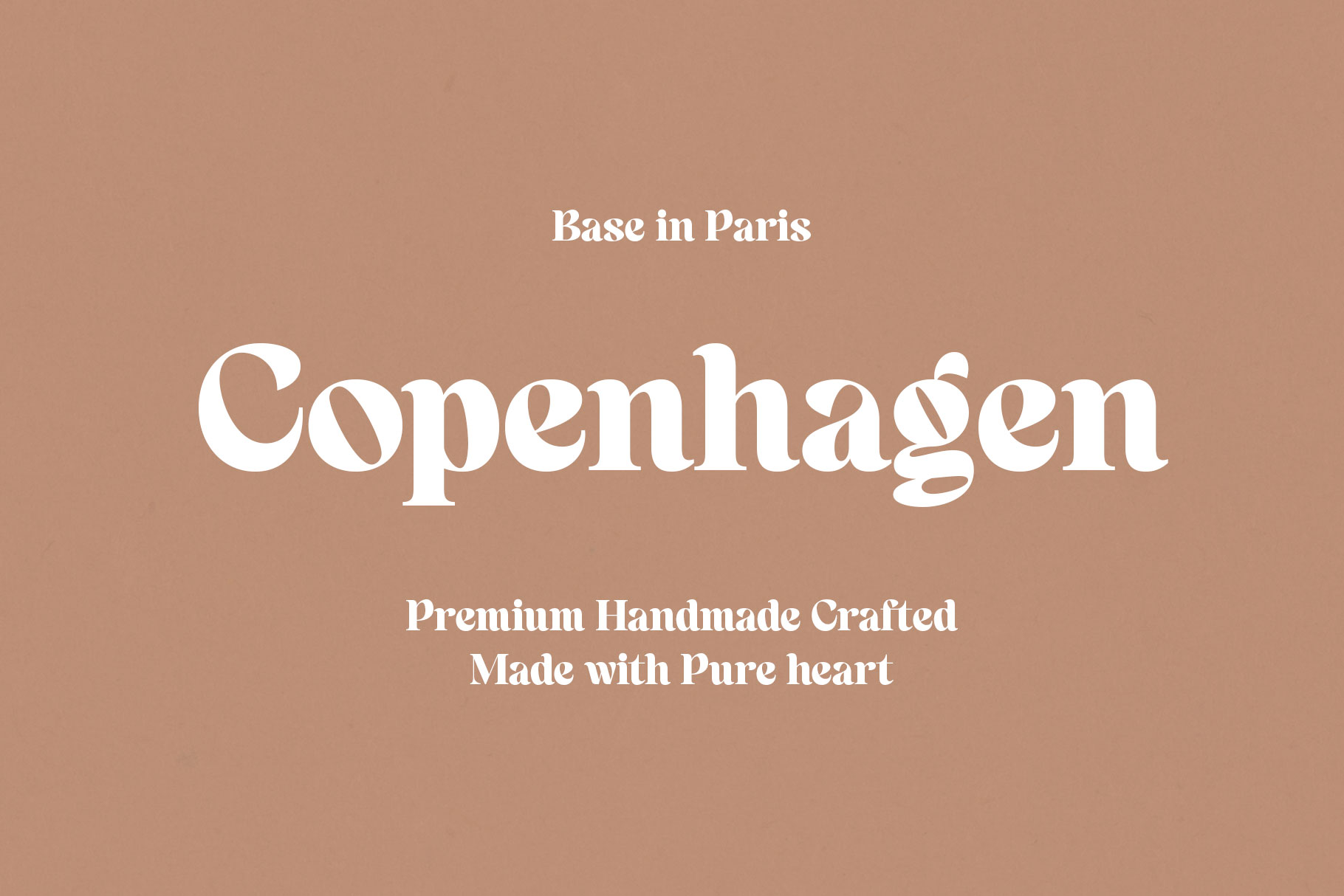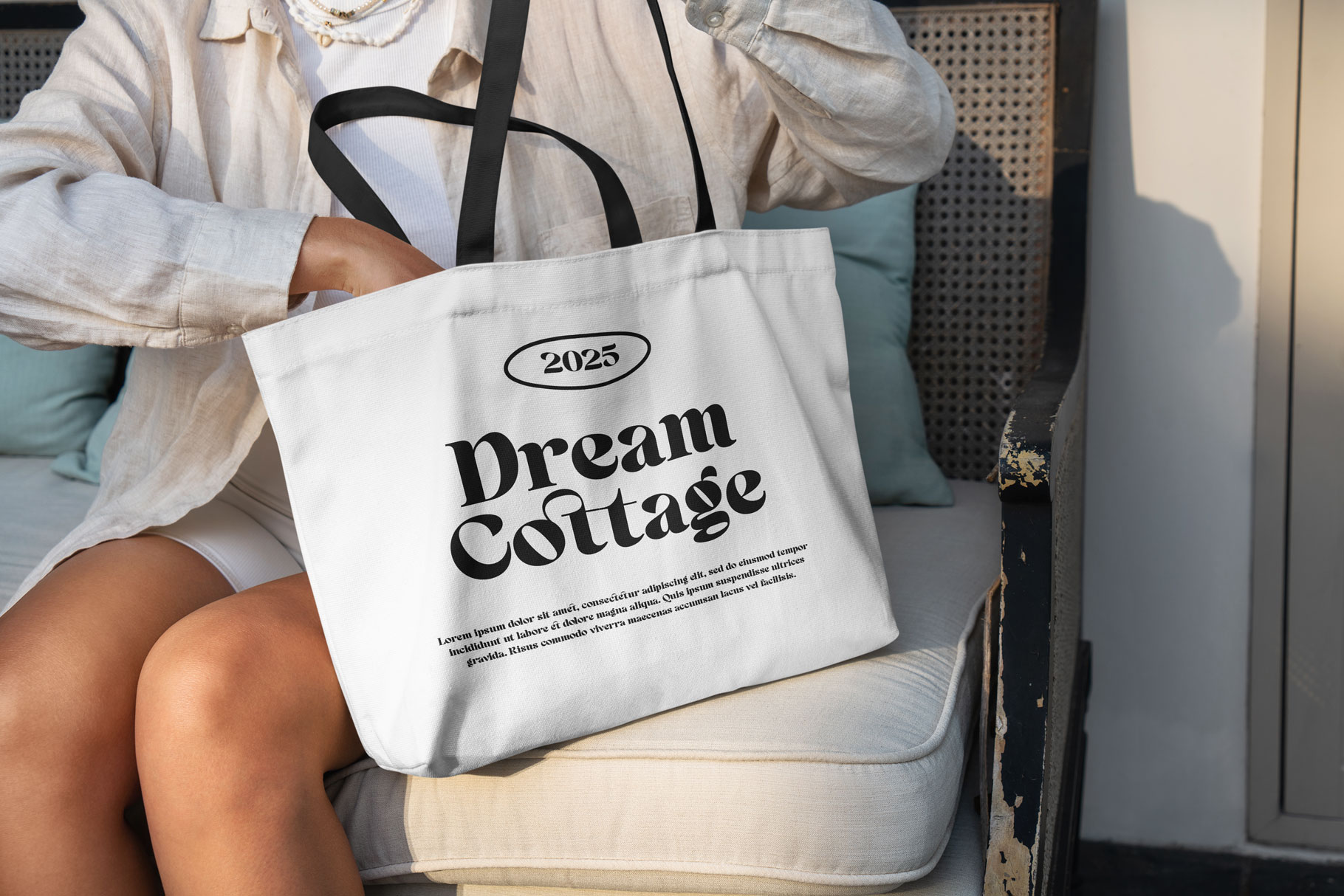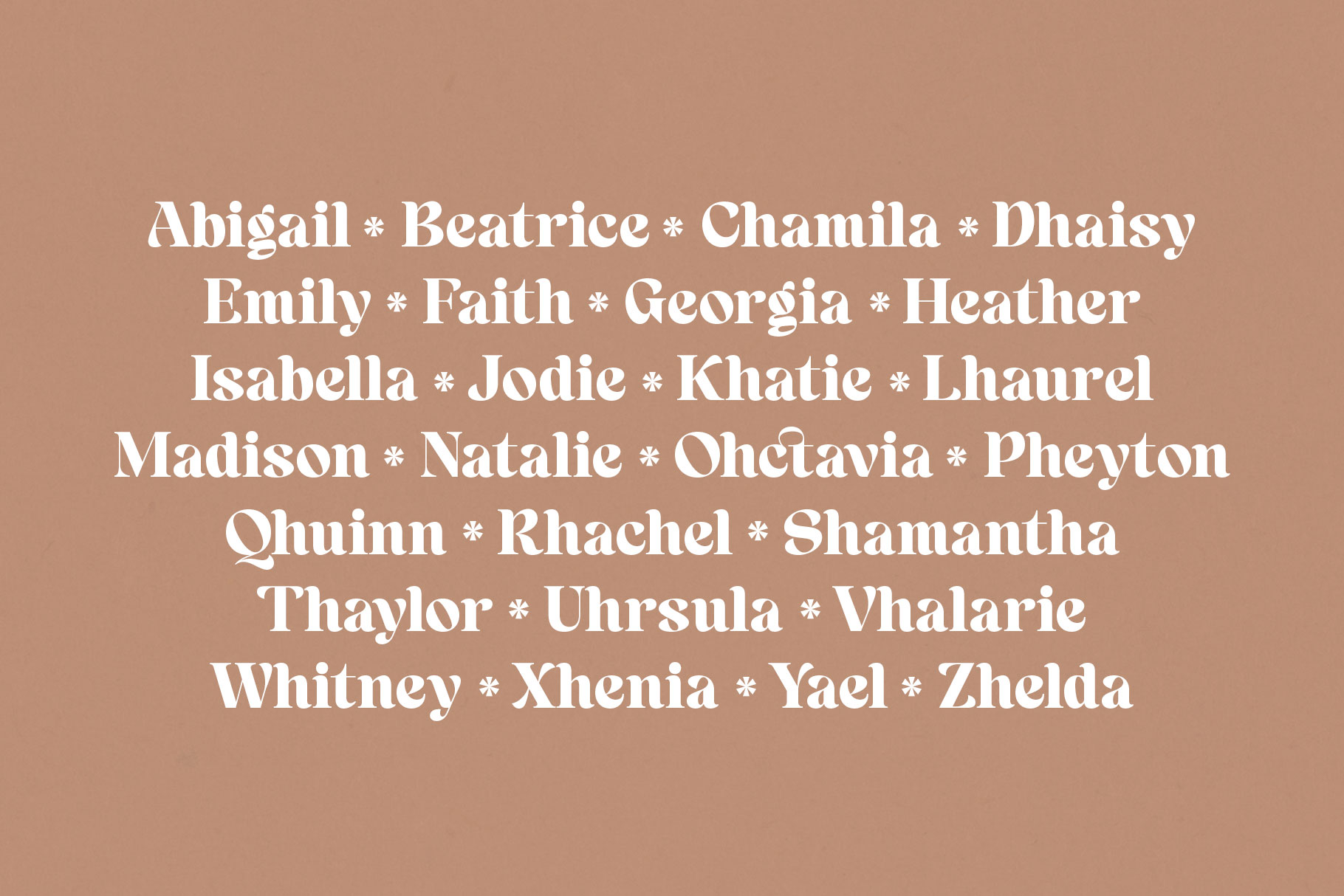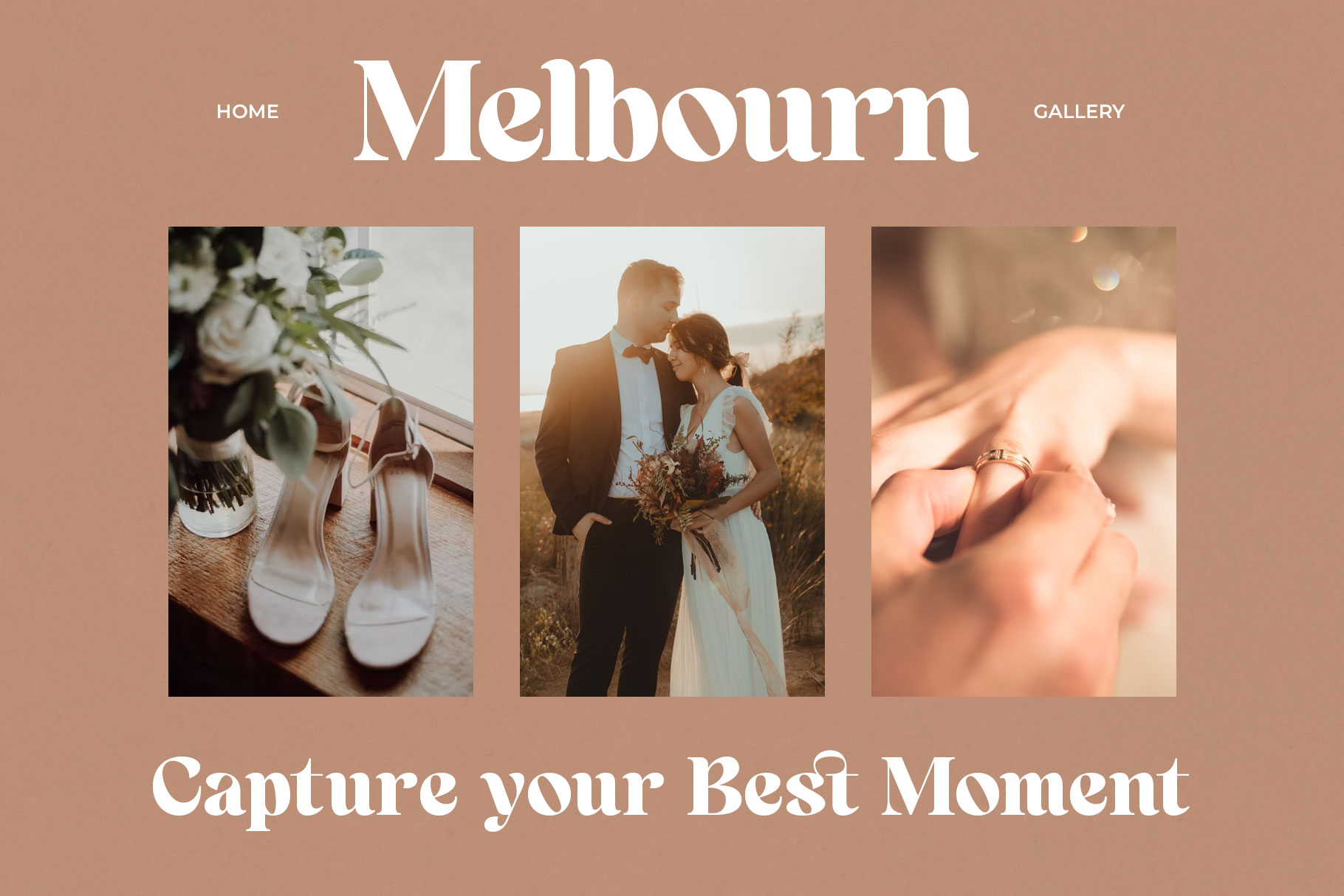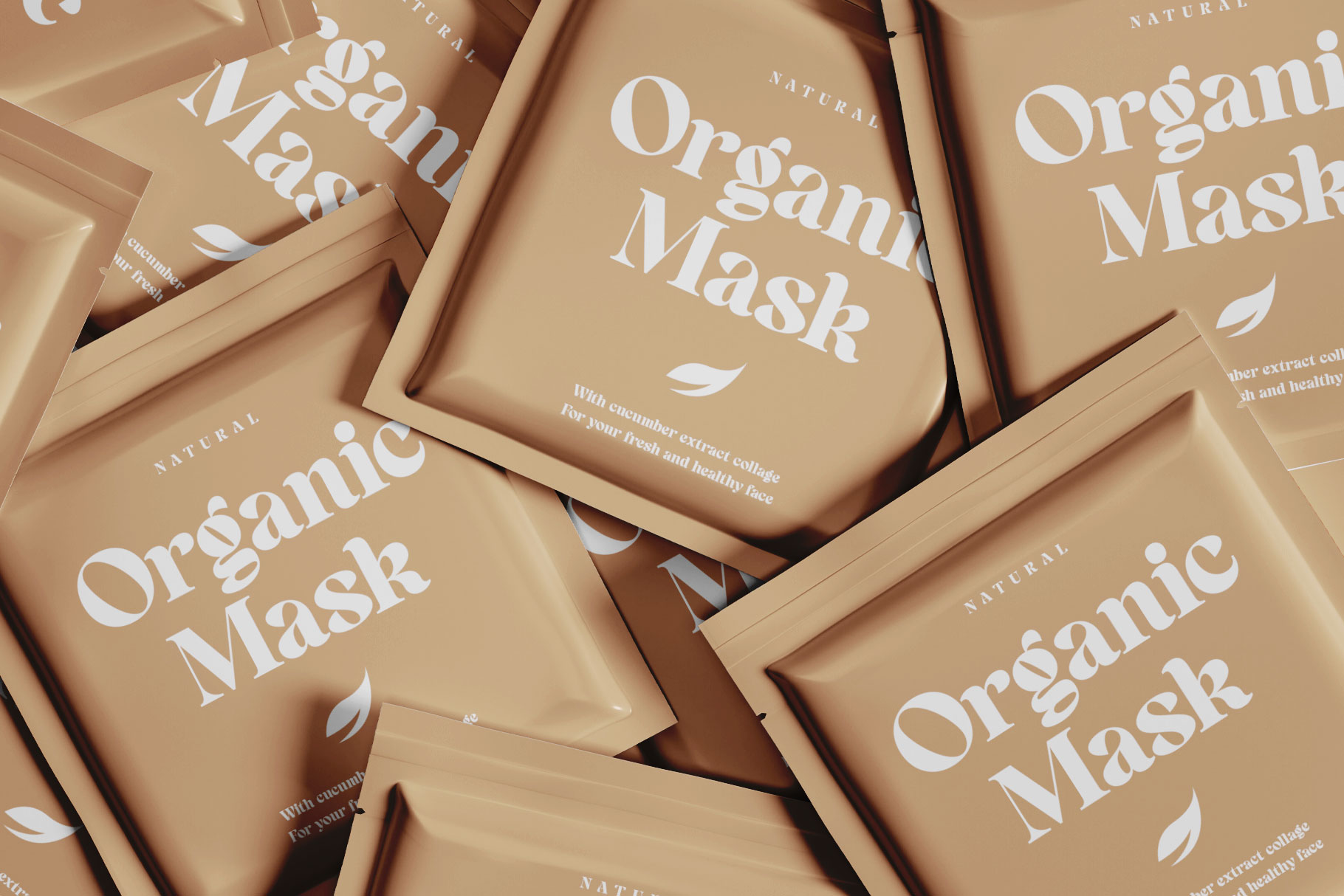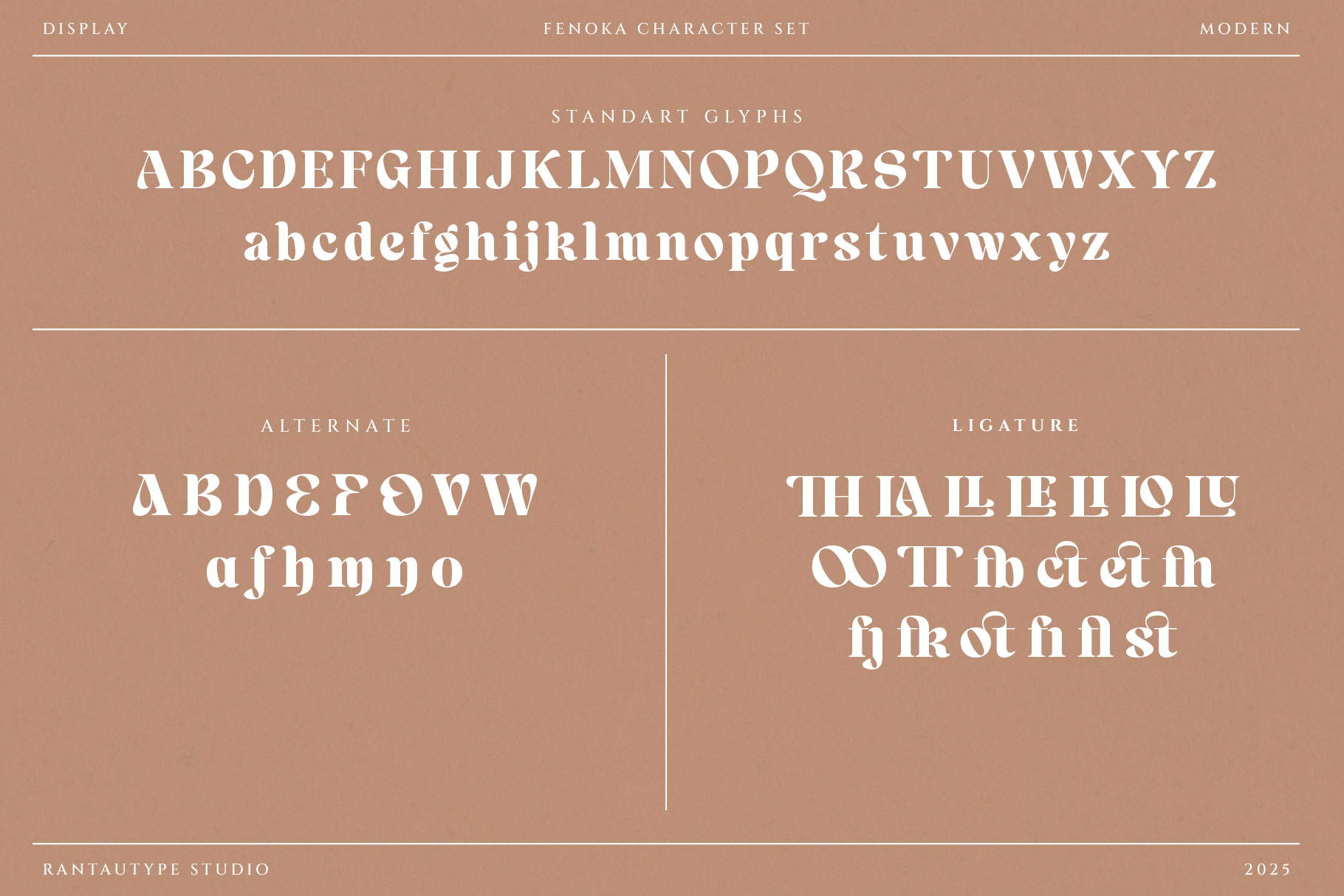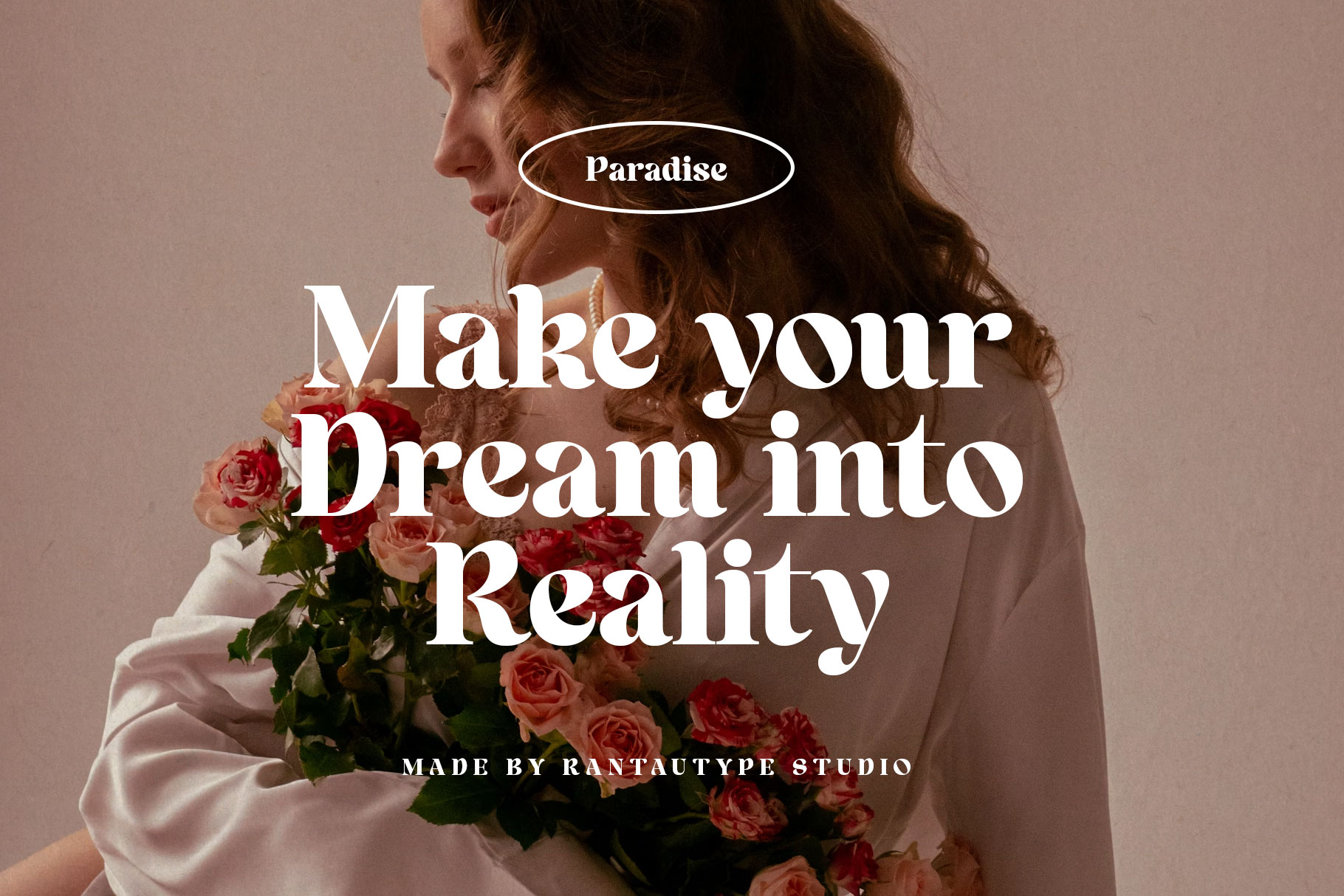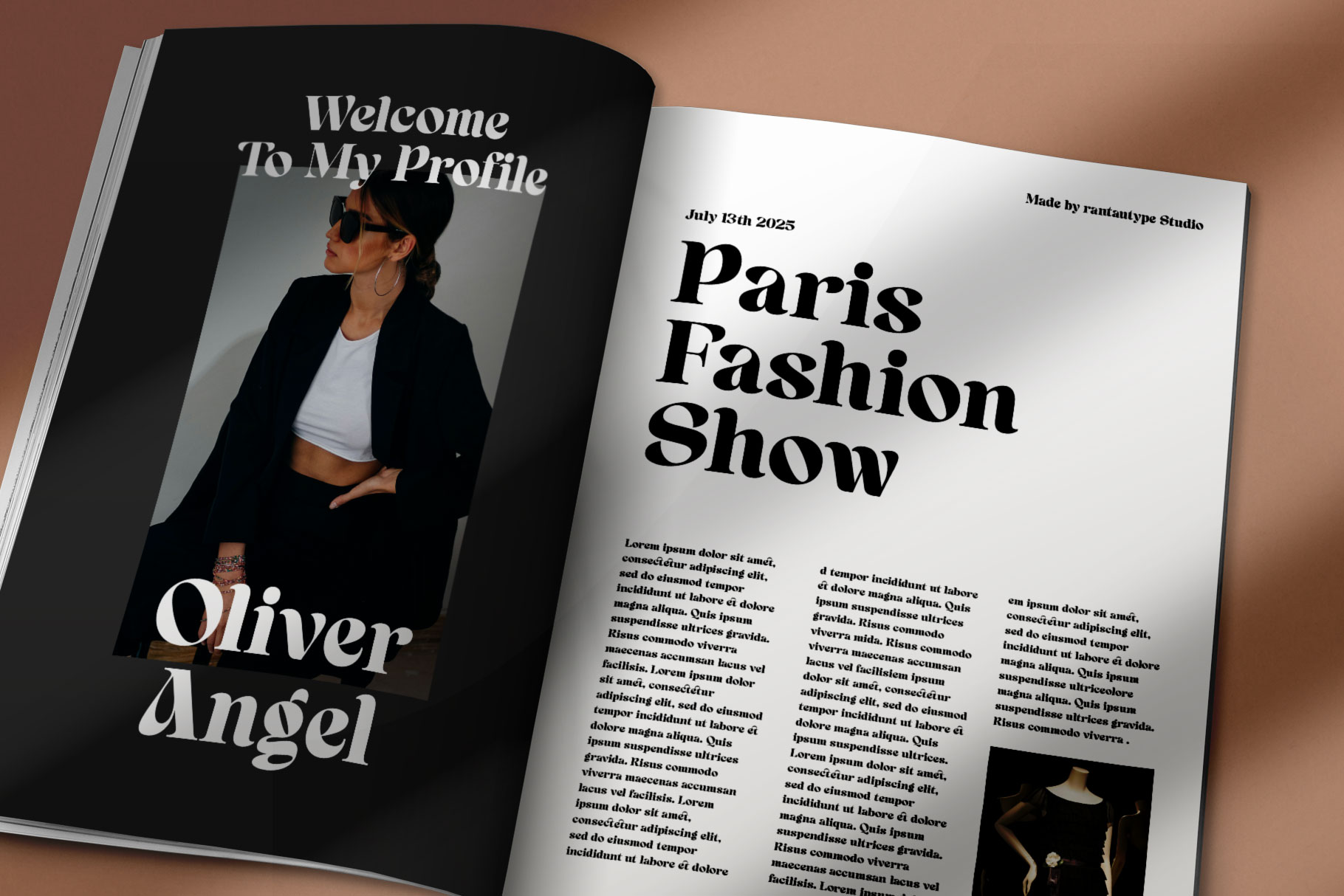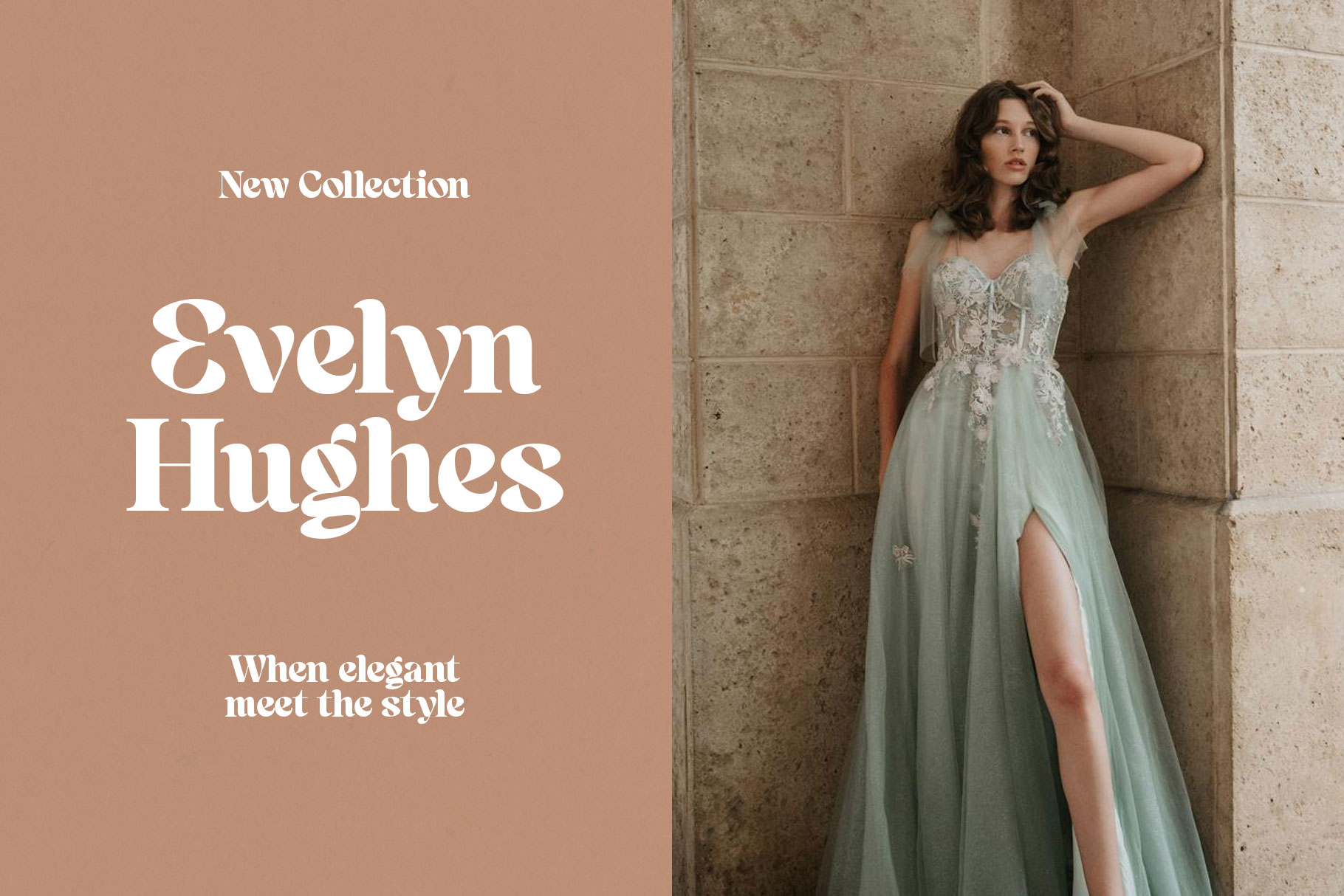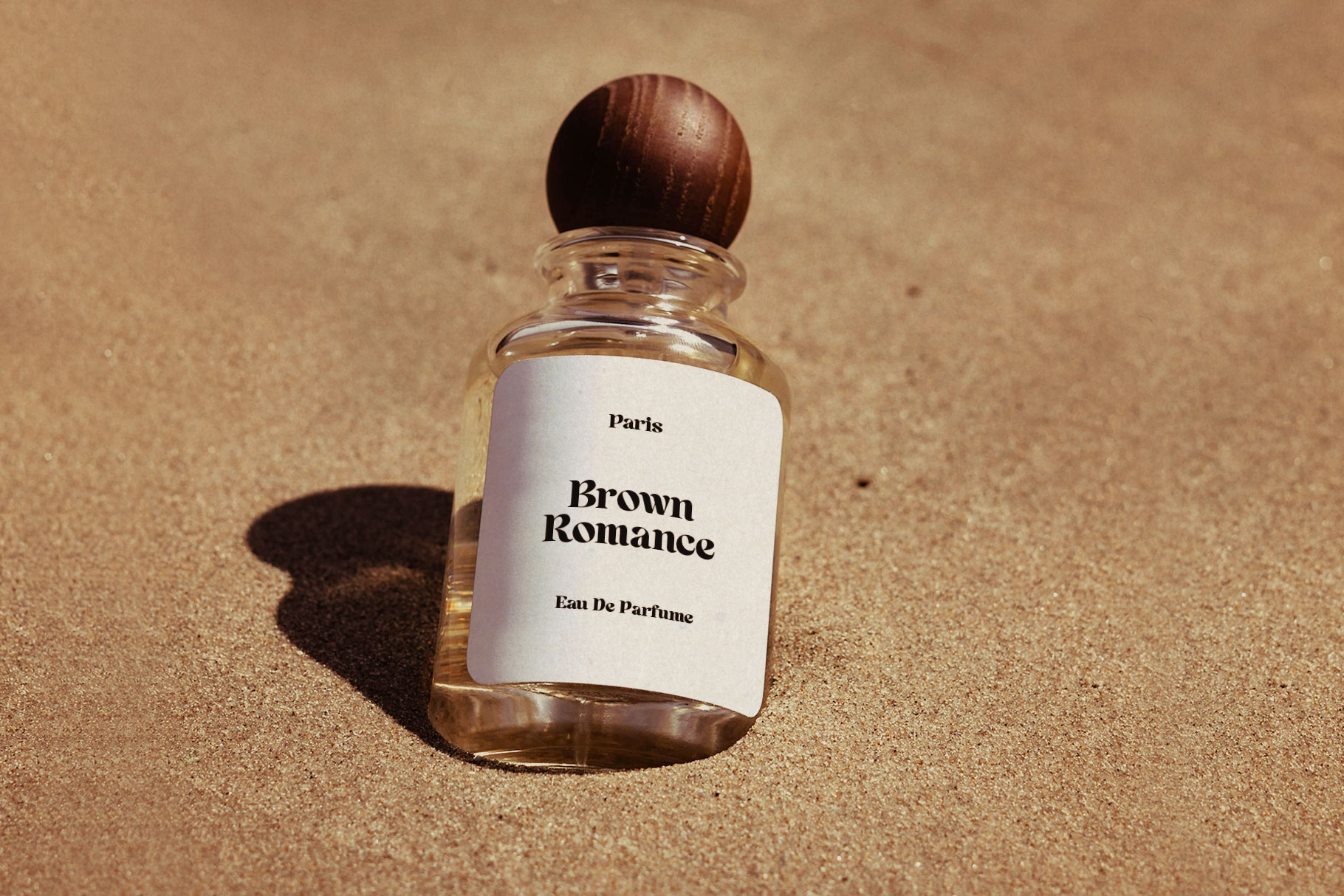
Fenoka Modern Display Serif Font
Fenoka is modern display serif font with bold style and embrace grace. Fenoka is a perfectly choice for any creative endeavor, chic, lifestyle design such as logotype, advertisements, watermark on photography, stationery, branding project, display and magazine, invitation, corporate brand, product design, label, business project and many other project with modern touch.